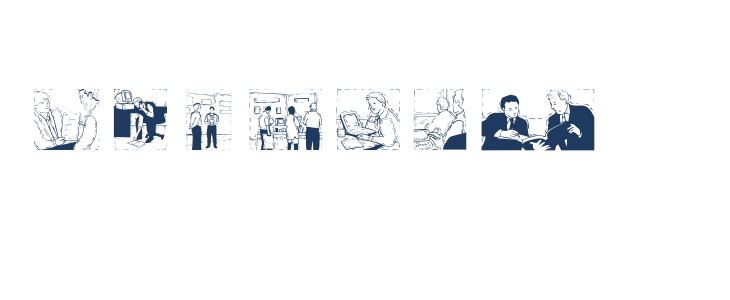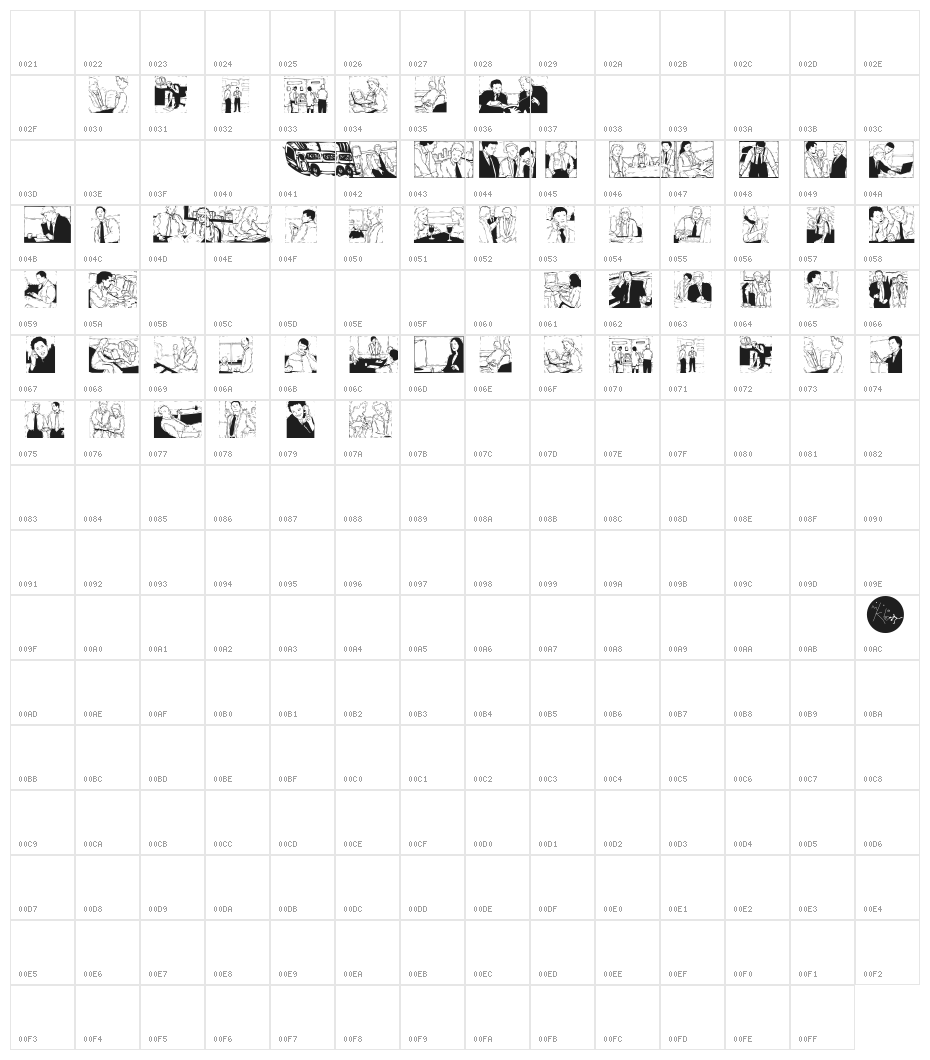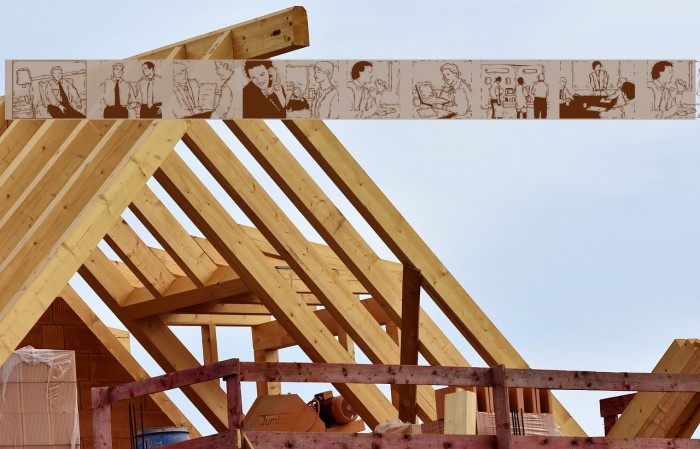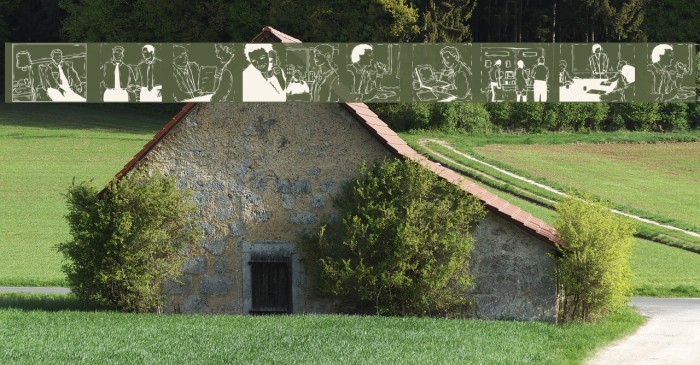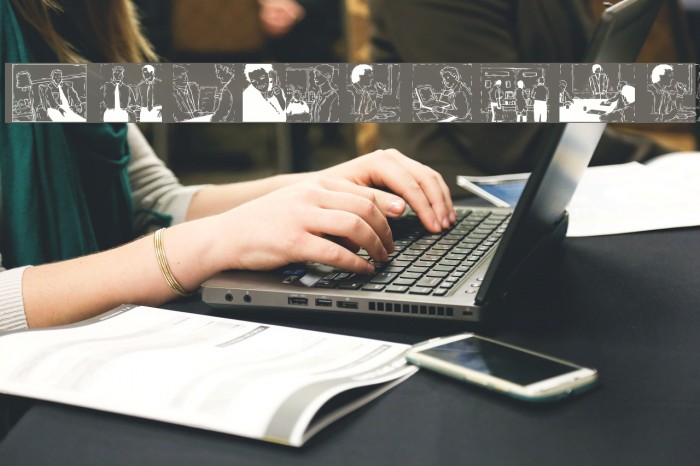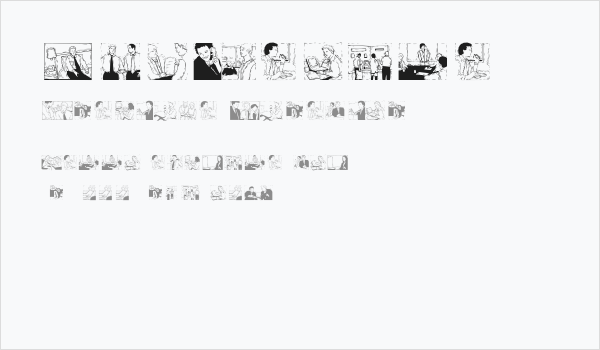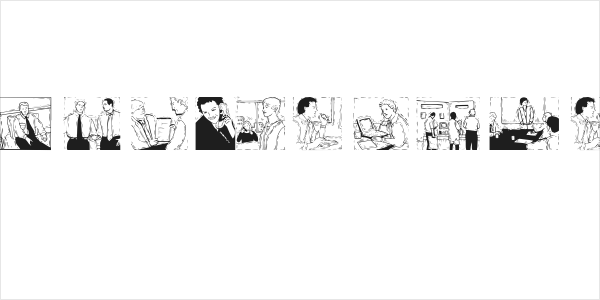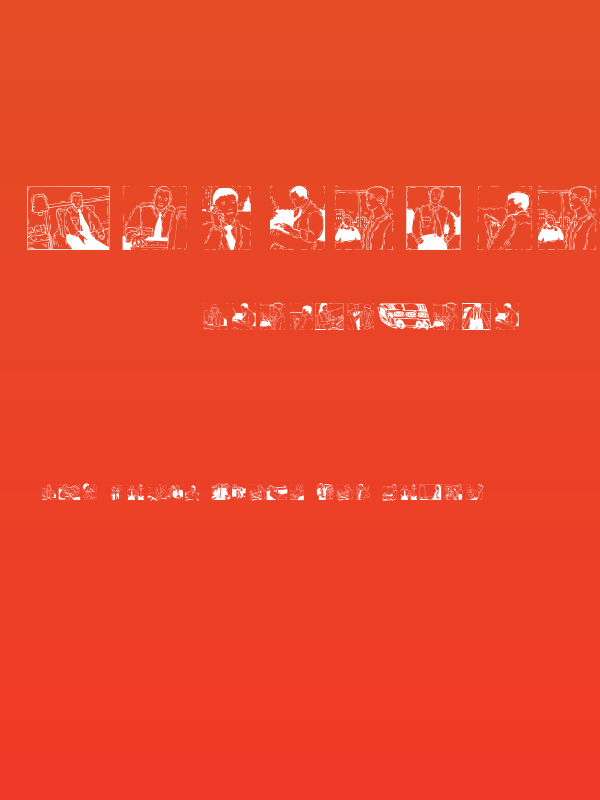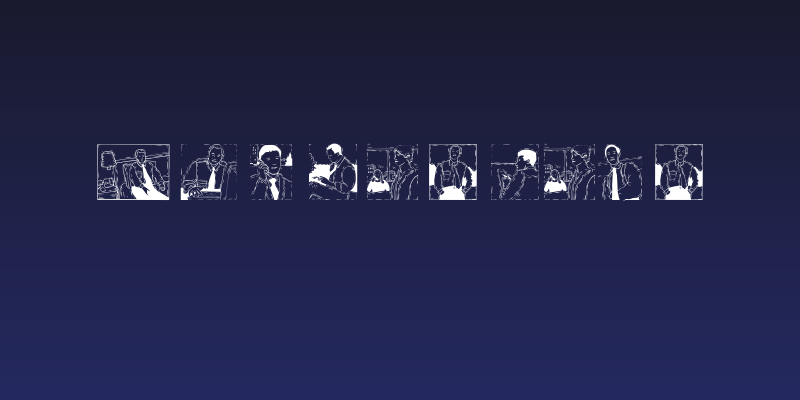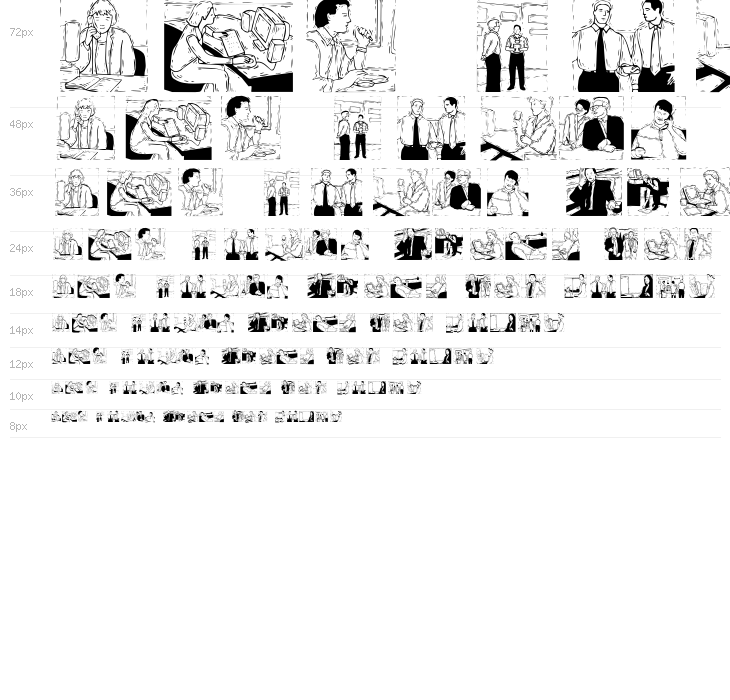
BusyPeople Font
A decorative display font composed of detailed black-and-white illustrations depicting business people in various office and work-related scenarios, with each character represented by a unique scene. The style is sketch-like and highly illustrative, focusing on professional environments and interactions.
| Overall Style | Decorative, Professional, Illustrative |
| Use Case | Headlines, Logos, Posters, Themed graphics |
| Proposed Projects | Corporate event posters, business presentations, creative branding for consulting firms, editorial illustrations, themed invitations. |